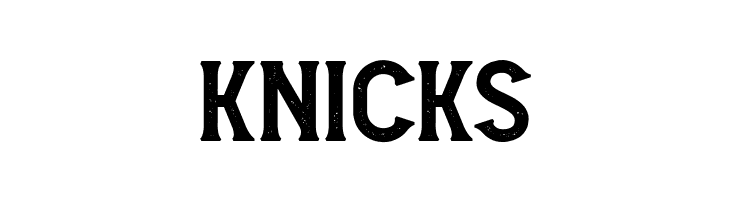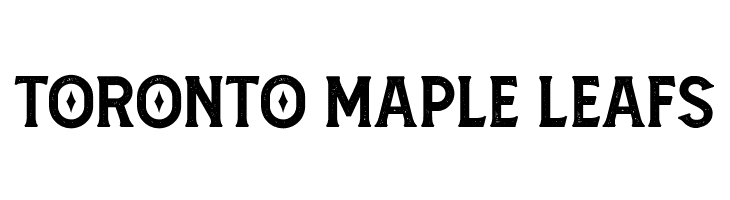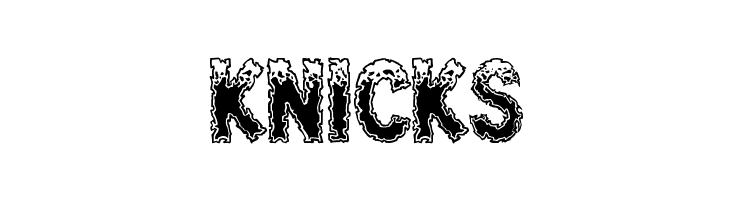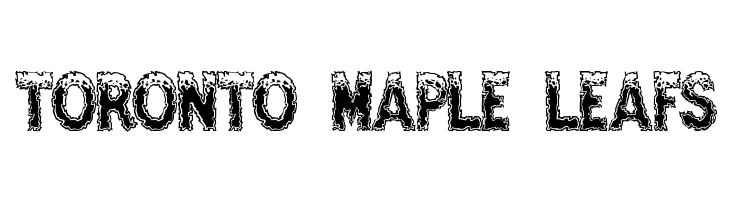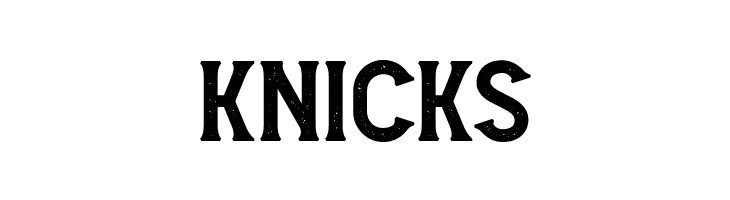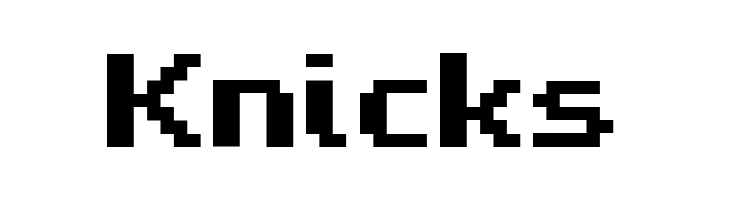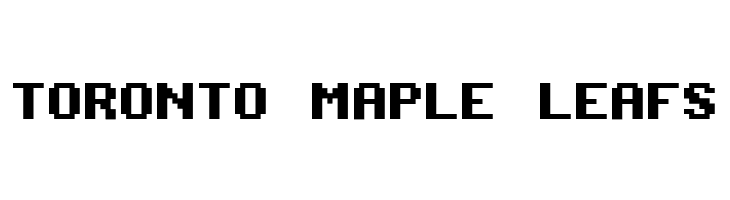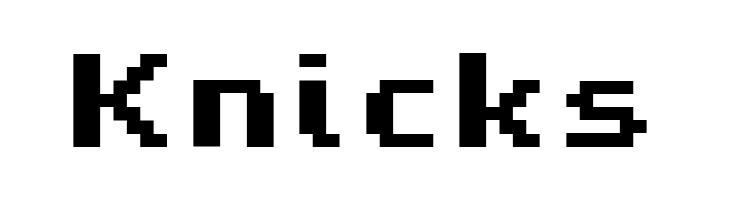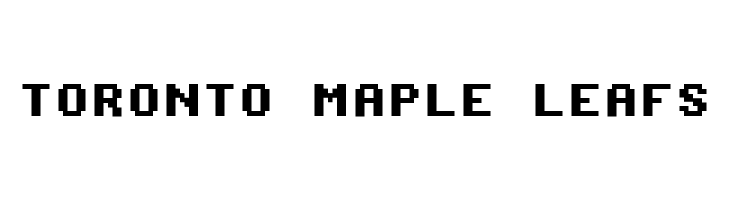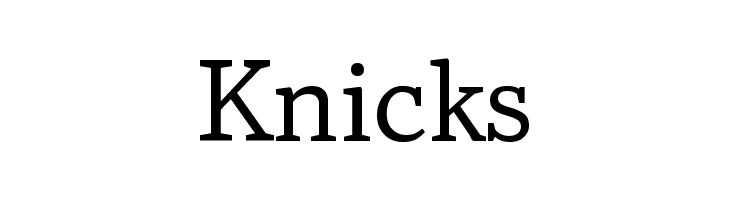
An elegant outline font with art deco influences and unique character flourishes.
A bold, elegant cursive font with flowing, ornate characters.
A sharp, elongated font with a distinctive and eerie style.
A pixelated, retro-style font with a blocky, geometric design.
A pixelated, retro-style font with a blocky, grid-like appearance.
A bold, distressed font with a vintage, handcrafted appearance.
A bold, distressed font with a vintage, textured appearance.
A bold, distressed font with a rugged, grunge-like appearance.
A modern serif font with clean lines and balanced proportions.
A bold, dynamic brush script with expressive strokes and a hand-painted look.